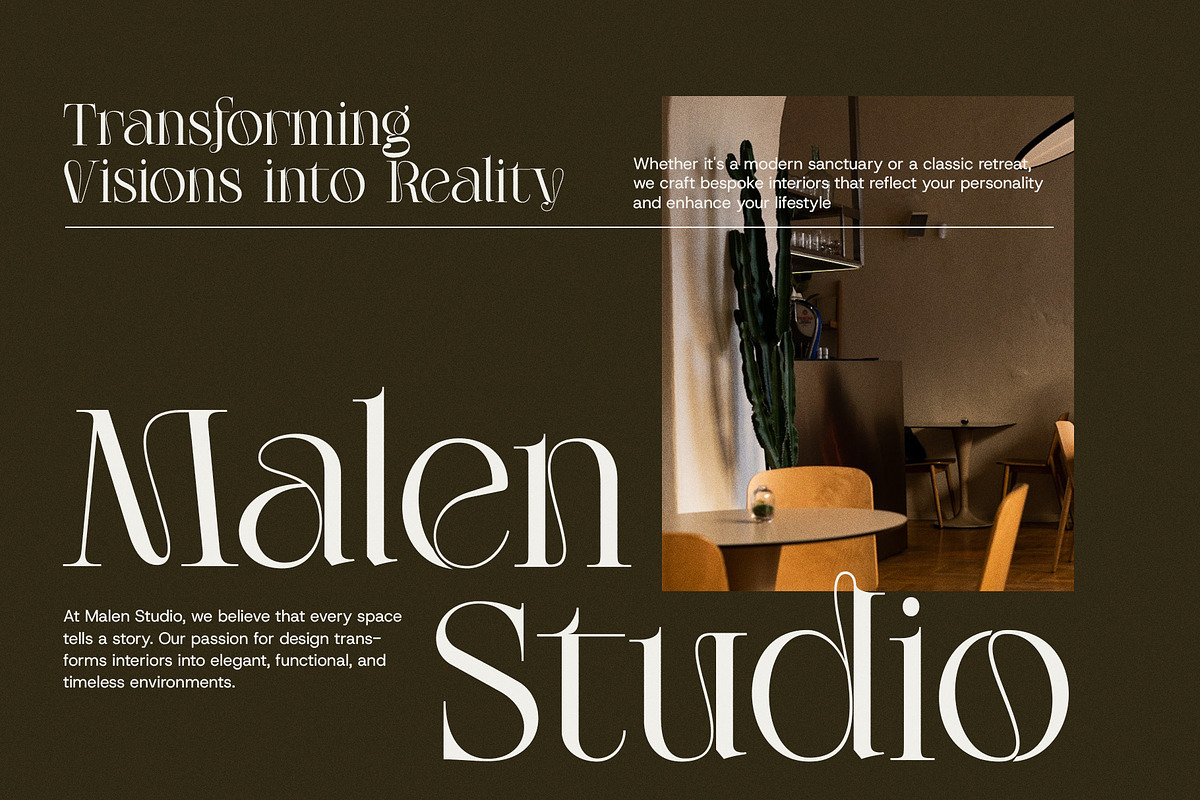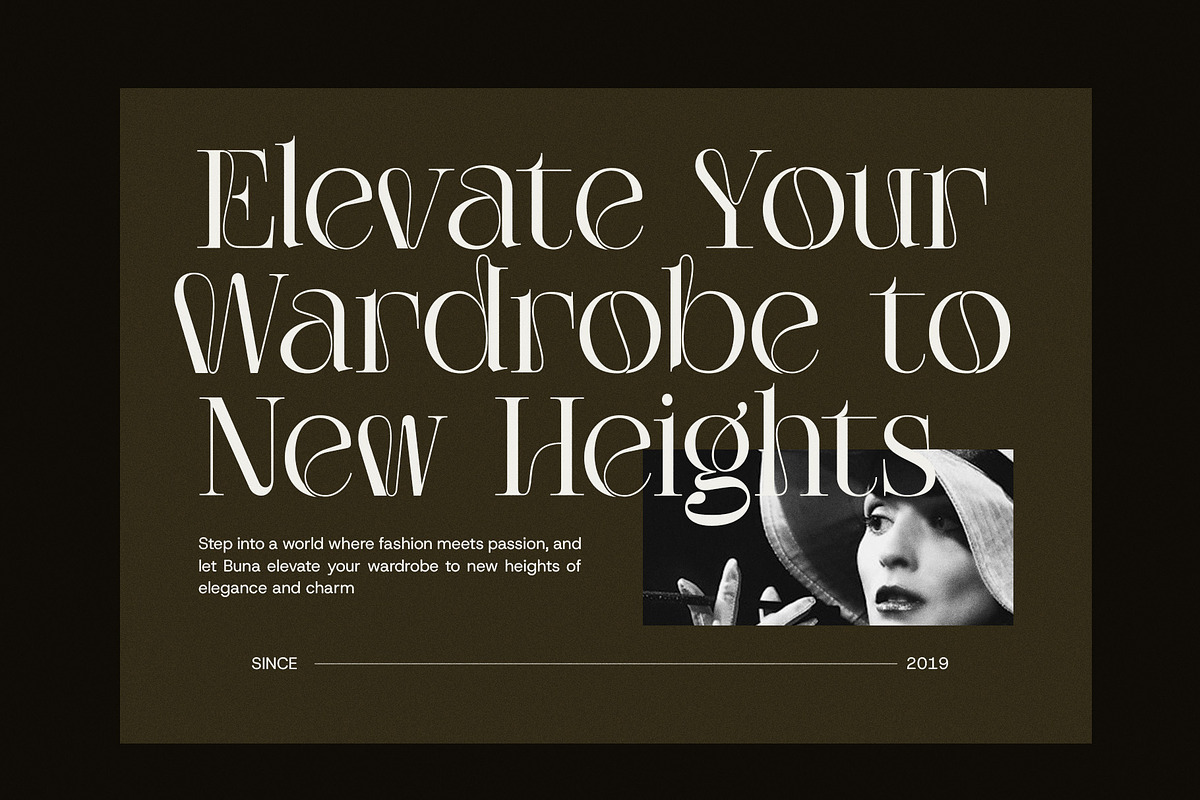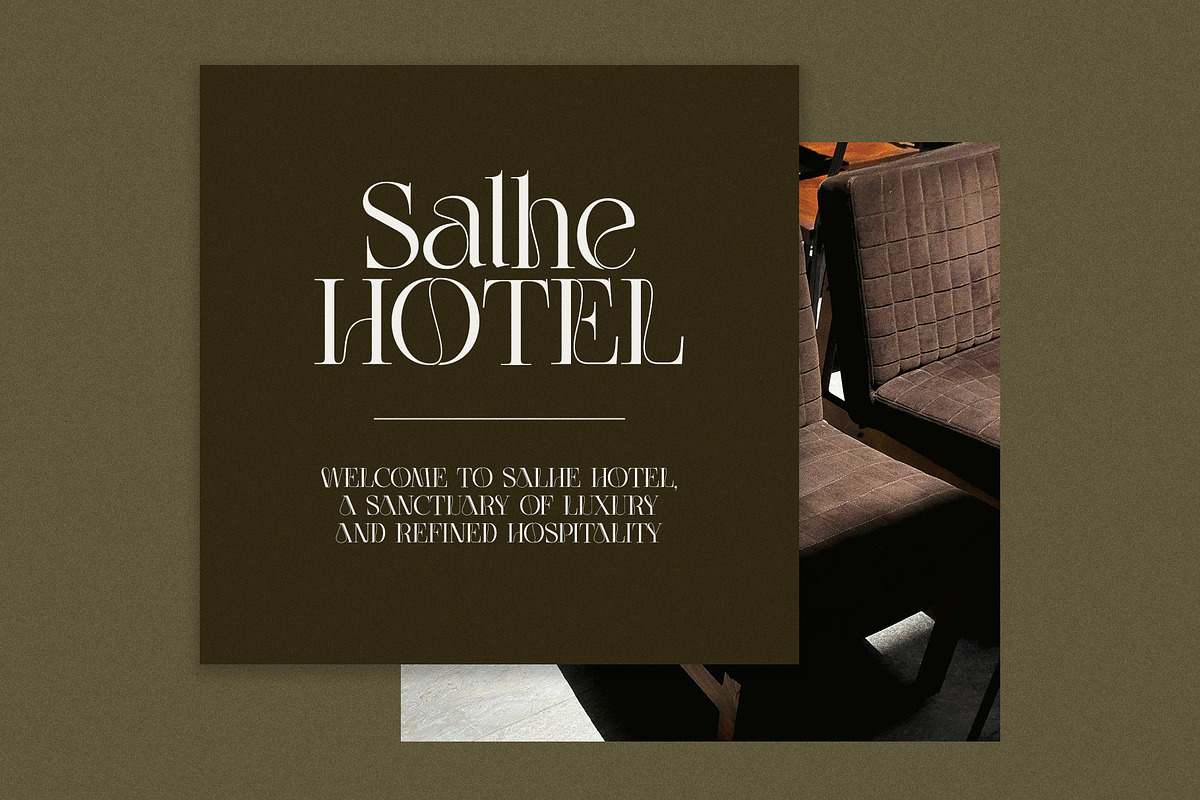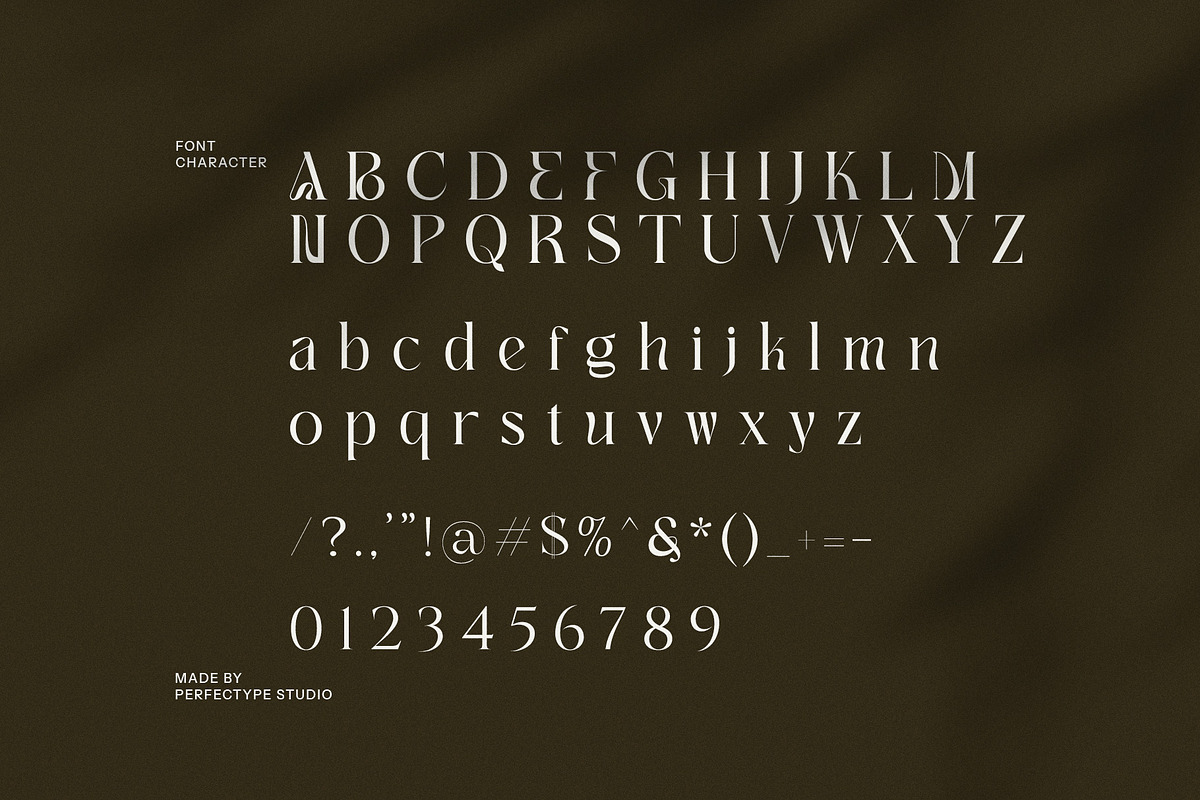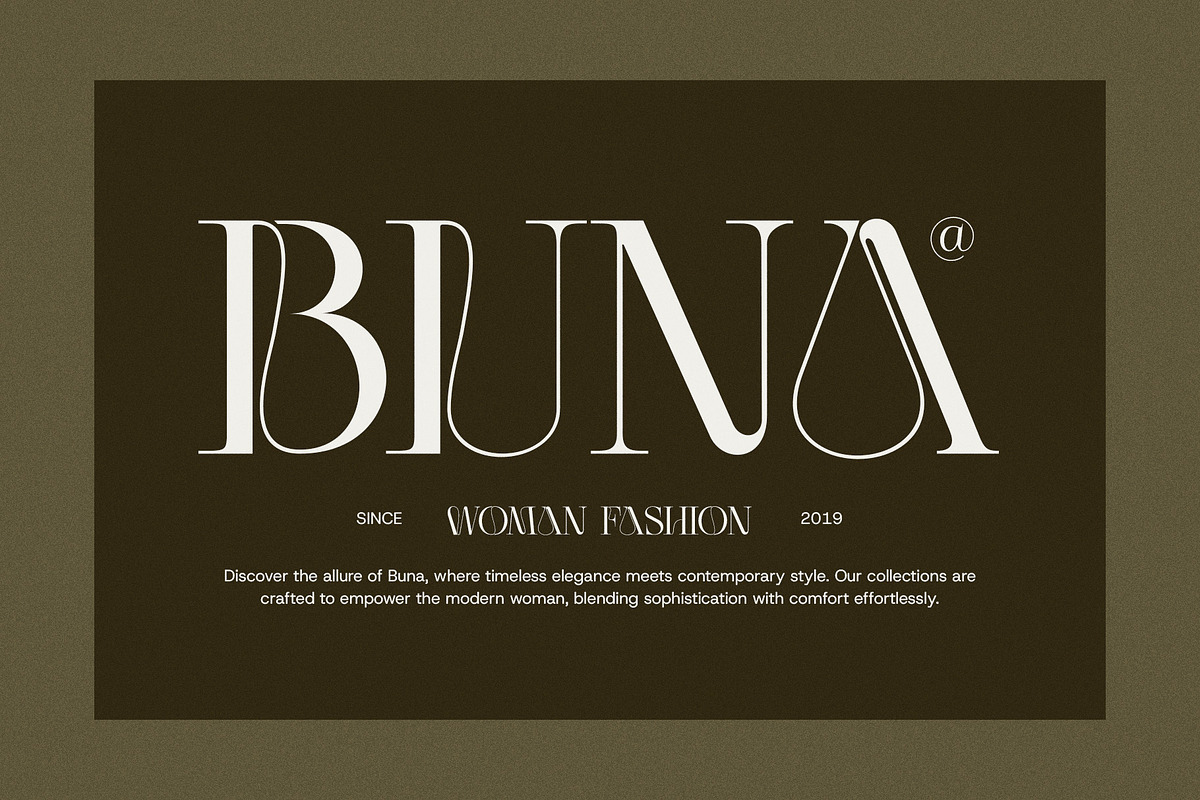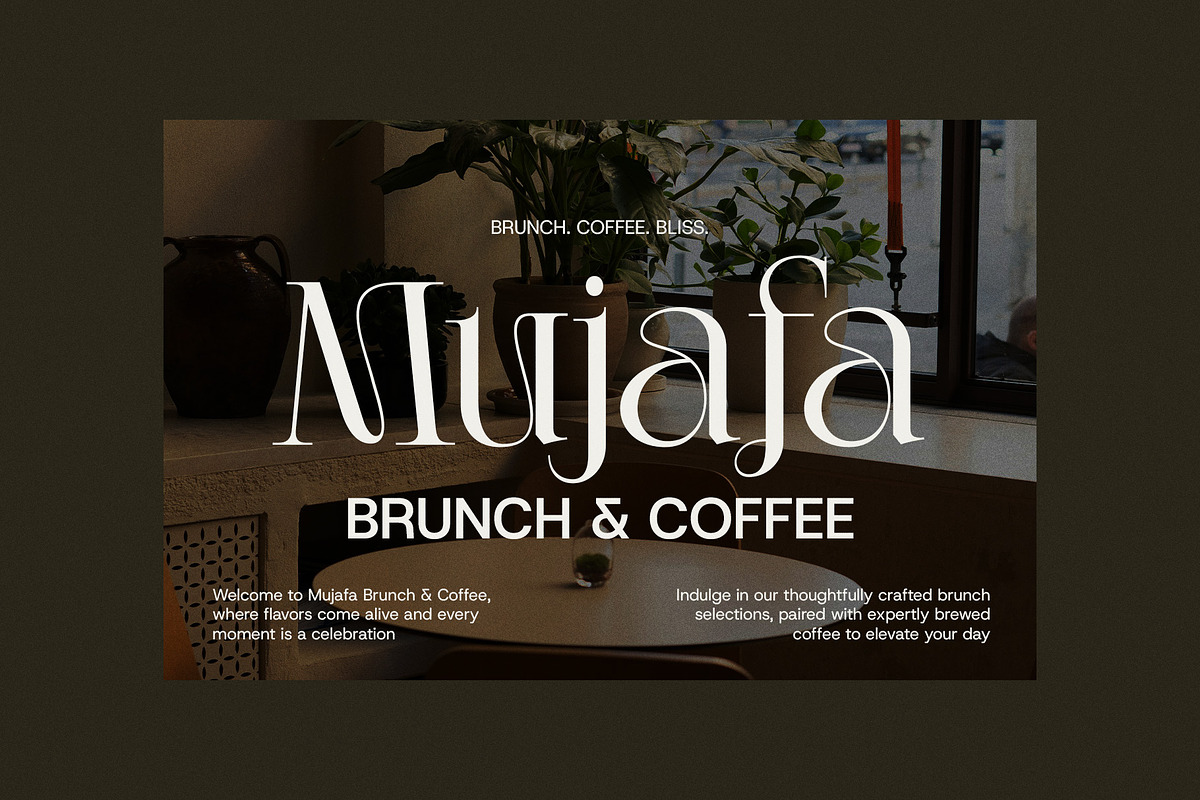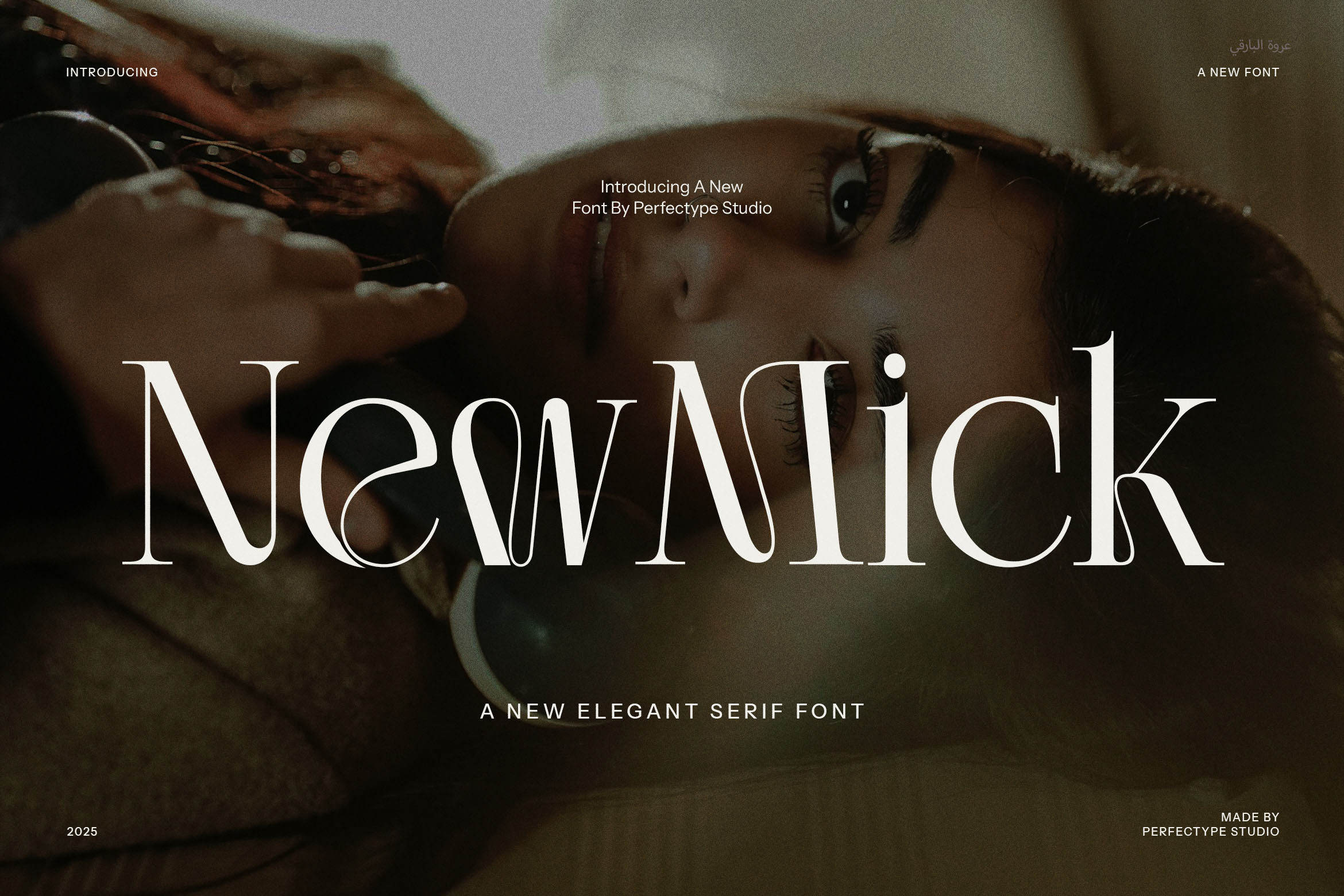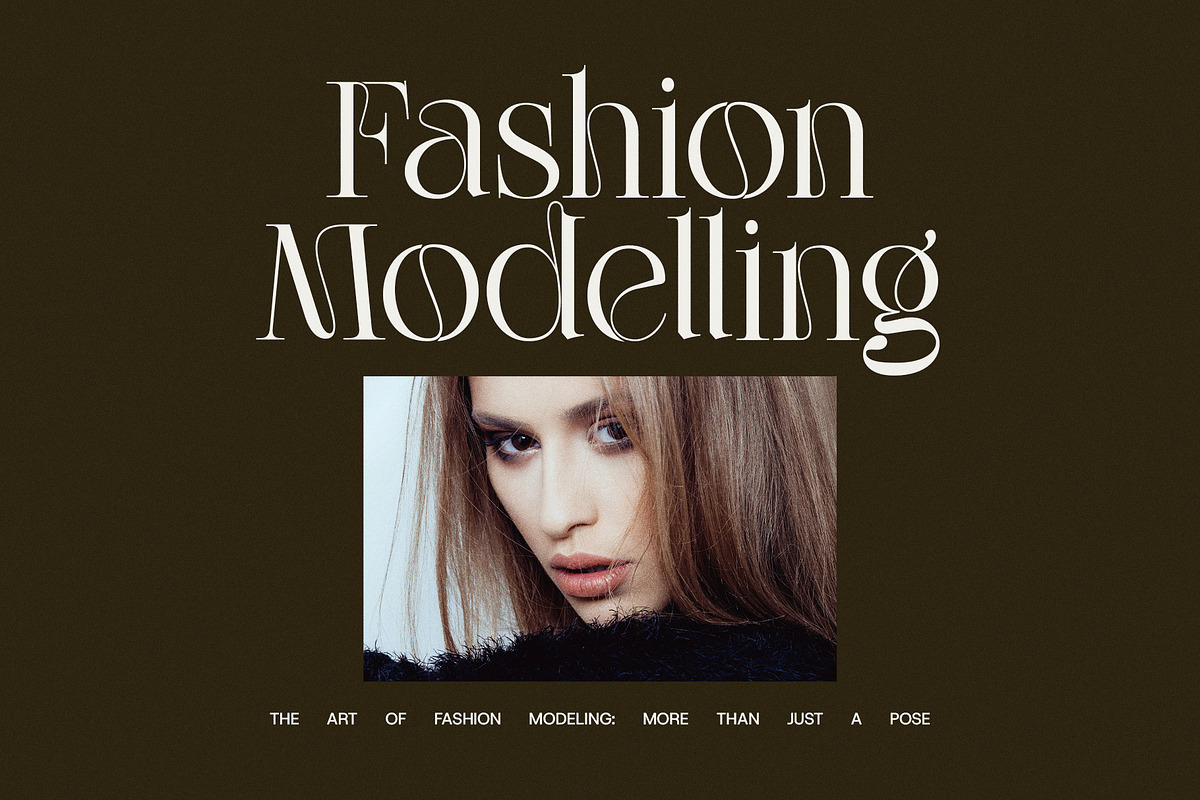
New Mick Serif Font
Introducing the New Mick Serif Font, a refined and contemporary serif typeface that effortlessly combines elegance with readability. Crafted for modern design needs, this font is the ideal choice for projects seeking a perfect balance between classic sophistication and fresh, innovative aesthetics. Whether you're designing for branding, websites, magazines, logos, or advertisements, the New Mick Serif Font brings a touch of class to every letter.
At its core, New Mick Serif Font embodies the timeless appeal of serif typography, but with a modern twist. The font's clean lines and sharp contrasts make it perfect for high-end branding and luxurious product packaging. Each character is meticulously designed with delicate details, allowing it to shine in both large headlines and fine print. The careful balance between traditional serifs and contemporary letterforms ensures the font remains both stylish and legible, making it suitable for any design project, whether digital or print.
One of the standout features of New Mick is its unique and beautiful ligatures and alternate forms. These design elements provide versatility and flexibility in your typography, allowing for custom-tailored looks in logos, titles, and product names. The ligatures flow smoothly, creating a sophisticated feel without sacrificing clarity, while the alternate characters offer additional creative possibilities for designers who want something distinct.
New Mick Serif Font is more than just a typeface—it's a powerful branding tool. Its elegance makes it a standout choice for boutique stores, luxury brands, and high-end product lines. Whether you're working on a restaurant logo, a fashion website, or a magazine layout, this font enhances the overall aesthetic with its polished and professional presence. Its versatility extends to food, fashion, editorial, and more, making it the perfect addition to any creative project.
Designed to stand out without overwhelming, New Mick Serif Font is an excellent choice for designs that demand attention while maintaining a sense of refinement. The font’s blend of modern design with classic roots allows it to be timeless yet contemporary. Whether you’re crafting a magazine spread, developing a website, or creating an advertisement, this font delivers a premium touch that elevates your work to the next level.